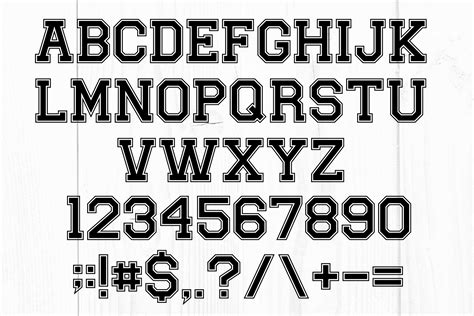
OSC Baseball SC: Jersey Numbers And Font Guide
OSC Baseball SC: Jersey Numbers and Font Guide
Hey baseball fans! Ever wondered about the story behind those numbers on the back of a baseball jersey, especially when it comes to the OSC Baseball SC team? Well, you’re in the right place! We’re diving deep into the world of jersey numbers and fonts, exploring their significance, history, and how they contribute to a team’s identity. Understanding the nuances of these elements can truly enhance your appreciation for the game.
The Significance of Jersey Numbers
So, what’s the big deal with jersey numbers? It’s more than just a way to identify players on the field. Jersey numbers have evolved into symbols of legacy, personal meaning, and team camaraderie. For many players, the number they wear becomes synonymous with their career, their achievements, and their personal brand. Think about legends like Derek Jeter (No. 2), Babe Ruth (No. 3), or Jackie Robinson (No. 42) – their numbers are instantly recognizable and carry immense historical weight.
For the OSC Baseball SC , each number is carefully chosen, often reflecting a player’s position, their personal connection to a specific digit, or even a tribute to a baseball hero. The selection process can be quite personal, with players sometimes requesting specific numbers that hold sentimental value. Coaches and team management often play a role in this process, ensuring that numbers are distributed fairly and that there aren’t any conflicts. Imagine the discussions and negotiations that might take place behind the scenes! It’s a fascinating aspect of team dynamics that often goes unnoticed by fans.
Beyond the individual level, jersey numbers also contribute to team identity and branding. Certain numbers might become associated with specific eras or star players, creating a sense of tradition and continuity. Teams might even retire numbers to honor legendary players, ensuring that their legacy lives on. This practice not only celebrates the player’s achievements but also reinforces the team’s history and values. For the OSC Baseball SC , the numbers on their jerseys are more than just digits; they’re a representation of the team’s spirit, its history, and its aspirations.
The Importance of Fonts in Jersey Design
Now, let’s talk fonts! While jersey numbers are important, the font used to display those numbers (and the team name) plays a crucial role in the overall aesthetic and branding of a baseball team. The font can convey a sense of tradition, modernity, power, or even playfulness. A well-chosen font can make a jersey look iconic and instantly recognizable, while a poorly chosen font can make it look amateurish and unappealing. Think of the classic pinstripes of the New York Yankees paired with their timeless font – it’s a visual representation of the team’s history and prestige.
The font style used on a baseball jersey can say a lot about the team’s personality and image. A bold, blocky font might convey a sense of strength and power, while a more elegant, cursive font might suggest a sense of tradition and sophistication. The color of the font is also important, as it needs to contrast well with the jersey color to ensure readability. The size and spacing of the letters and numbers are also crucial, as they need to be proportional to the overall design of the jersey.
For the OSC Baseball SC , the font selection is a deliberate process that takes into account the team’s colors, logo, and overall branding. The goal is to create a jersey that is not only visually appealing but also representative of the team’s values and identity. This might involve experimenting with different font styles, colors, and sizes to find the perfect combination. The team might also consider the historical context of the font, choosing a font that has a connection to baseball or the team’s local community. The end result is a jersey that is both stylish and meaningful, reflecting the team’s unique character.
The History of Jersey Numbers and Fonts in Baseball
The use of jersey numbers in baseball dates back to the early 20th century. Initially, numbers were assigned based on the batting order, with the starting players wearing numbers 1 through 9. However, this system was soon abandoned as teams began to experiment with different numbering systems. By the 1930s, most teams had adopted the practice of assigning numbers to players based on their position or seniority.
The evolution of fonts in baseball jersey design has been equally fascinating. Early jerseys often featured simple, blocky fonts that were easy to read. As printing technology improved, teams began to experiment with more elaborate and decorative fonts. In the 1950s and 1960s, many teams adopted a classic, rounded font that became synonymous with the era. Today, teams have access to a wide variety of fonts, allowing them to create truly unique and personalized jerseys.
Over the years, there have been some memorable and iconic jersey designs that have stood the test of time. The pinstripes of the New York Yankees, the script lettering of the Los Angeles Dodgers, and the bold font of the Boston Red Sox are all instantly recognizable and have become symbols of their respective teams. These designs have not only influenced the fashion of baseball fans but have also inspired countless other sports teams and organizations.
For the OSC Baseball SC , understanding the history of jersey numbers and fonts in baseball can provide valuable context for their own jersey design choices. By studying the trends and traditions of the past, the team can create a jersey that is both modern and timeless, paying homage to the history of the game while also forging its own unique identity. This historical awareness can also help the team connect with its fans, creating a sense of shared history and tradition.
OSC Baseball SC: A Closer Look at Their Jersey Design
Let’s get specific, guys! What makes the OSC Baseball SC jersey stand out? It’s all in the details. From the carefully chosen color scheme to the unique font used for the numbers and team name, every element is designed to reflect the team’s identity and values. The team’s colors might represent their local community, their history, or their aspirations for the future. The font might convey a sense of tradition, modernity, or even a bit of swagger. And the overall design might be inspired by classic baseball jerseys or by more contemporary trends.
When analyzing the OSC Baseball SC jersey, it’s important to consider the overall aesthetic and how it contributes to the team’s branding. Does the jersey look professional and well-designed? Does it accurately represent the team’s personality and values? Does it stand out from other baseball jerseys in a positive way? These are all important questions to ask when evaluating the effectiveness of the team’s jersey design.
The OSC Baseball SC jersey likely incorporates elements that are unique to the team, such as a team logo, a slogan, or a special patch. These elements can add a personal touch to the jersey and help to create a sense of connection between the team and its fans. The team might also use different jersey designs for home and away games, or for special occasions such as playoff games or charity events. These variations can add excitement and interest to the team’s overall branding.
Choosing the Right Font for Your Baseball Jersey
If you’re designing your own baseball jersey, whether for a little league team, a recreational league, or even just for fun, choosing the right font is crucial. The font can make or break the entire design, so it’s important to consider a few key factors. First, think about the overall aesthetic you’re trying to achieve. Do you want a classic, traditional look, or something more modern and edgy? This will help you narrow down your font choices.
Next, consider the readability of the font. While a fancy, decorative font might look cool, it’s important to make sure that the numbers and letters are easy to read from a distance. This is especially important for baseball jerseys, as fans in the stands need to be able to easily identify the players on the field. Look for fonts that are clear, simple, and well-spaced.
You’ll also want to think about the color of the font and how it will contrast with the jersey color. A dark font on a light jersey will generally be more readable than a light font on a dark jersey. You might also want to experiment with different font colors to see what looks best with your team’s colors. Finally, consider the overall size and placement of the font on the jersey. The numbers should be large enough to be easily visible, but not so large that they overwhelm the design. The team name should be placed in a prominent location, such as across the chest or on the sleeves.
Jersey numbers and fonts are more than just decorative elements on a baseball uniform; they’re integral components of a team’s identity, history, and branding. For teams like the OSC Baseball SC , every detail is carefully considered to create a jersey that is both visually appealing and representative of the team’s values. By understanding the significance of jersey numbers and fonts, fans can gain a deeper appreciation for the game and the teams they support. So, the next time you watch a baseball game, take a closer look at the jerseys and appreciate the thought and effort that goes into their design. You might be surprised at what you discover!